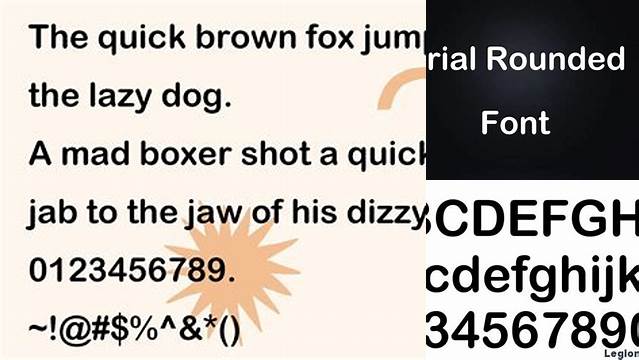
Arial Rounded Font: Free Download & Creative Uses Guide
Hey guys! Are you looking for a font that's both modern and friendly? Look no further than Arial Rounded! This font is a super popular choice for all sorts of projects, and the best part is, you can often find it for free. In this article, we're going to dive deep into the world of Arial Rounded, exploring everything from where to download it to how you can use it to create stunning designs. So, let's get started!
What is Arial Rounded?
Arial Rounded is a sans-serif typeface that's part of the Arial font family. What makes it special is its rounded terminals, which give it a softer, more approachable feel compared to the standard Arial font. This makes it a fantastic choice for designs that need to be both modern and friendly. Think about logos, websites, and even print materials – Arial Rounded can add a touch of warmth and personality to any project. The beauty of Arial Rounded lies in its versatility. It's clean enough to be used for professional documents, yet playful enough for creative projects. This makes it a go-to font for designers who want a font that can do it all. Whether you're designing a website, creating a logo, or putting together a presentation, Arial Rounded can help you achieve a polished and professional look. One of the key reasons Arial Rounded is so popular is its readability. The rounded edges make the letters feel more open and inviting, which can improve the overall reading experience. This is especially important for digital designs, where users are often scanning text quickly. A font that's easy on the eyes can help keep your audience engaged and ensure your message gets across clearly. Plus, the rounded terminals give it a unique visual appeal that sets it apart from other sans-serif fonts, making it a great choice for branding and identity design. When considering Arial Rounded, it's also worth noting its availability. It comes pre-installed on many systems, making it a convenient choice for designers who need a reliable font that everyone can see. This widespread availability ensures that your designs will look consistent across different devices and platforms, which is crucial for maintaining a professional image. The font's clean lines and simple shapes also make it highly adaptable to various design styles, from minimalist and modern to more playful and whimsical. This versatility means you can use Arial Rounded in a wide range of projects without sacrificing visual appeal or readability. Another advantage of Arial Rounded is its legibility at various sizes. Whether you're using it for headlines, body text, or even small captions, the font remains clear and easy to read. This is thanks to its well-balanced letterforms and consistent stroke weight. So, if you're looking for a font that performs well in different contexts, Arial Rounded is a solid choice.
Creative Uses for Arial Rounded
Okay, now that we've covered where to find free font options, let's talk about how you can use Arial Rounded (or a similar font) in your designs! This font is incredibly versatile, making it a fantastic choice for a wide range of projects. Whether you're designing a logo, creating a website, or working on print materials, Arial Rounded can help you achieve a clean, modern, and friendly look. One of the most common uses for Arial Rounded is in logo design. Its rounded edges give it a softer, more approachable feel than other sans-serif fonts, which can be a great way to convey a sense of warmth and trustworthiness. It's especially well-suited for businesses that want to project a friendly and welcoming image, such as cafes, children's stores, or community organizations. When using Arial Rounded in a logo, consider pairing it with a complementary font for a more dynamic look. For example, you could use Arial Rounded for the main logo text and a bolder, more geometric font for the tagline or supporting text. This can help create visual interest and make your logo stand out. Arial Rounded is also a popular choice for website design. Its clean lines and excellent readability make it a great option for body text, headlines, and navigation menus. The rounded terminals give it a slightly softer feel than the standard Arial font, which can help create a more inviting and user-friendly experience. When using Arial Rounded on a website, be sure to consider the overall design aesthetic. It works well with a variety of styles, from minimalist and modern to more playful and whimsical. You can also use it in combination with other fonts to create a more visually interesting design. For example, you could use Arial Rounded for headlines and a serif font for body text, or vice versa. In addition to logos and websites, Arial Rounded is also a great choice for print materials. Its clean, legible design makes it ideal for brochures, flyers, posters, and other marketing materials. The rounded edges give it a friendly and approachable feel, which can help your message resonate with your audience. When using Arial Rounded in print, be sure to choose a size that's easy to read. The font is generally legible at small sizes, but it's always a good idea to test it out to ensure it looks good in your final design. You can also use different weights of Arial Rounded to create visual hierarchy and emphasize key information. Another creative use for Arial Rounded is in infographics. Its clean, simple design makes it a great choice for presenting data and information in a clear and concise way. The rounded edges give it a friendly and approachable feel, which can help make complex information more engaging. When using Arial Rounded in an infographic, be sure to use a consistent style and layout to maintain visual harmony. You can also use different colors and graphics to highlight key points and make your infographic more visually appealing. Overall, Arial Rounded is a fantastic font for a wide range of design projects. Its versatility, readability, and friendly aesthetic make it a valuable addition to any designer's toolkit. Whether you're designing a logo, creating a website, or working on print materials, Arial Rounded can help you achieve a polished and professional look.
Arial Rounded: A Timeless Font Choice
So, guys, as you can see, Arial Rounded is a fantastic font that offers a blend of modern style and friendly appeal. Its versatility makes it a go-to choice for designers working on a variety of projects, from logos and websites to print materials and infographics. And while the original Arial Rounded font is a commercial product, there are plenty of free alternatives available that can give you a similar look and feel. Remember, when using any font, it's crucial to respect licensing terms and give credit to designers when possible. By doing so, you're supporting the creative community and ensuring that you're using fonts legally and ethically. Whether you opt for the original Arial Rounded or a free alternative, this font is sure to add a touch of warmth and personality to your designs. Its clean lines and rounded terminals make it a visually appealing and highly readable choice for a wide range of applications. So, go ahead and experiment with Arial Rounded in your next project – you might just find that it becomes your new favorite font!